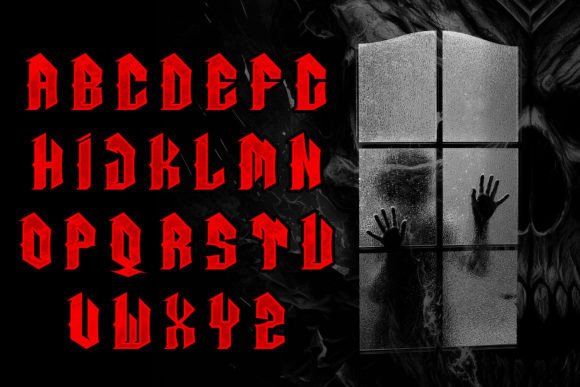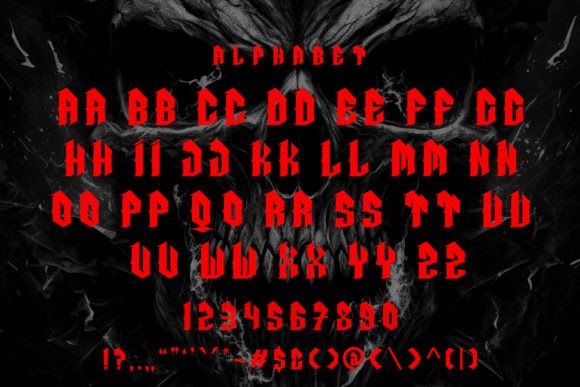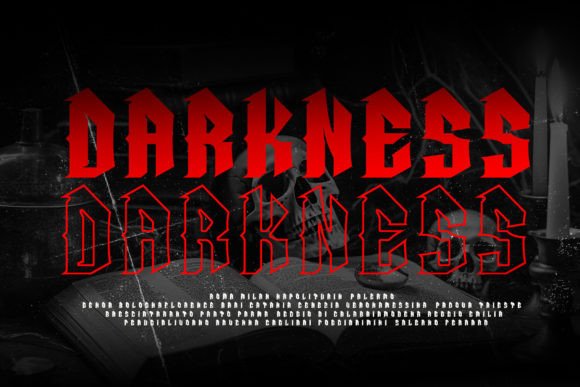
Introduction to Death Dirty Font
Death Dirty is a bold and thick lettered blackletter font.
Key Features of Death Dirty Font
Why Choose Death Dirty Font?
Death Dirty Font offers exceptional quality and versatility, making it a valuable addition to your design toolkit. Whether you’re creating for personal projects or commercial use, Death Dirty Font delivers professional results.